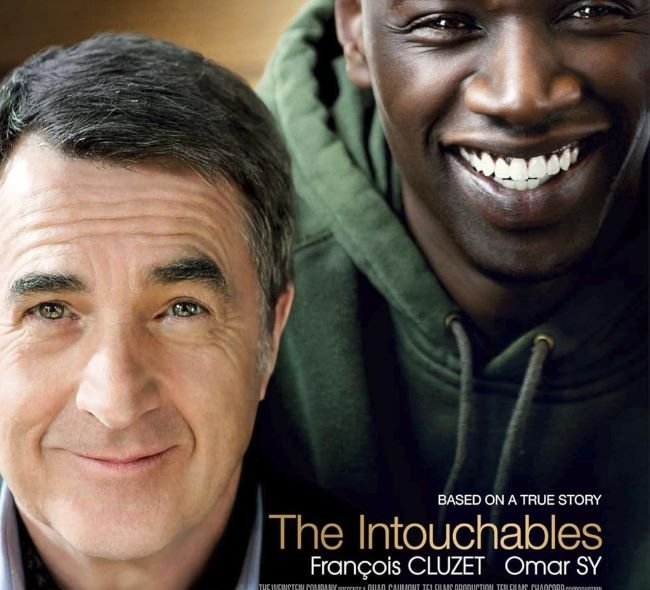
The Intouchables font earns its place on the poster of one of French cinema’s most beloved films through exactly the qualities the film itself celebrates — warmth, dignity, and an effortless elegance that never needs to announce itself. Clean, balanced, and quietly sophisticated, the typography sets the tone for a story built on an unlikely friendship that transcends every social boundary. The closest freely available match is a Helvetica Now Text Light — a refined, humanist sans-serif that carries the same composed restraint and generous spacing as the original title treatment.
For designers, this is the kind of typeface that works precisely because it doesn’t compete — it supports. It’s equally at home on sophisticated event invitations, editorial features, emotional documentary titles, or any creative project where the typography’s job is to create atmosphere rather than demand attention. Like the film it represents, its greatest strength lies in knowing exactly when to step back and let the story breathe.